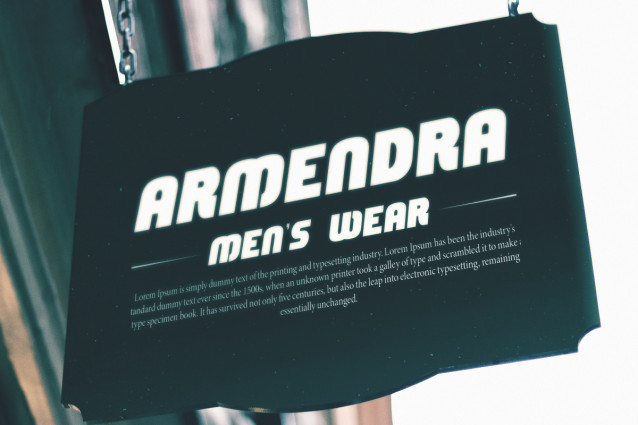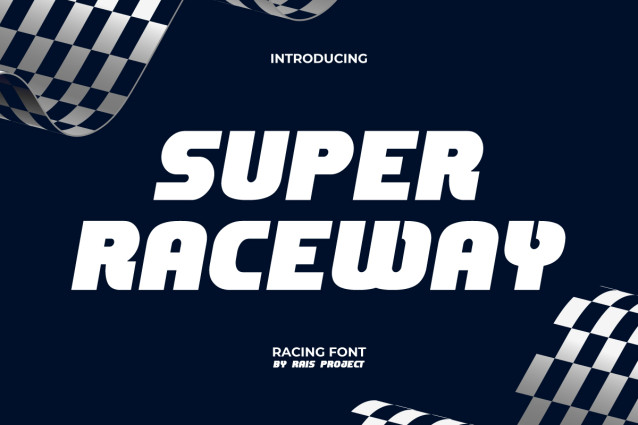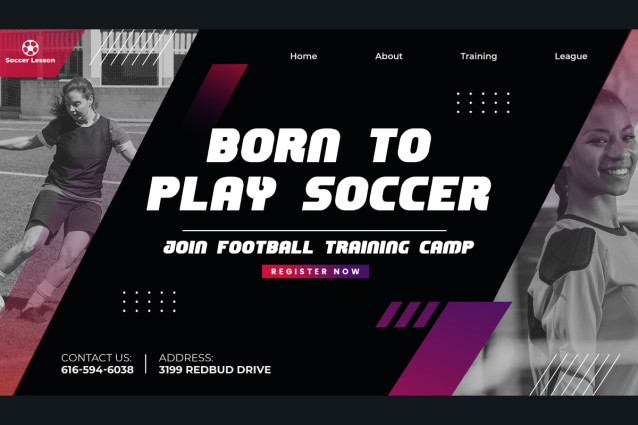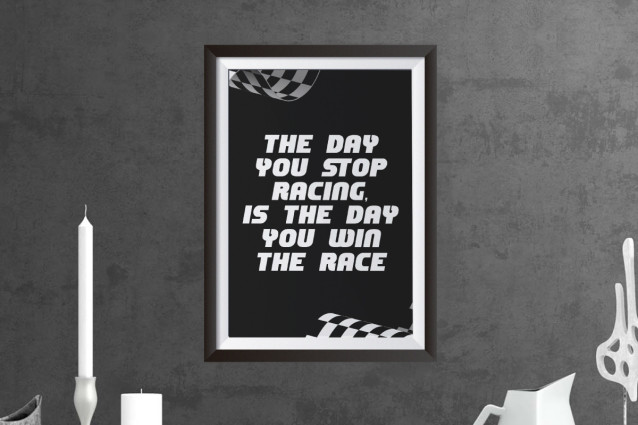
Super Raceway Font
Super Raceway Font is a modern chic racing display font, created by RaisProject. This font has a simple style, but still stands out with its bold and cool characters. It will be good for any designs, such as signage, brand image, custom design, stationery, advertisement, invitation, label, marketing material, poster, product packaging, quotes, website page, and more!